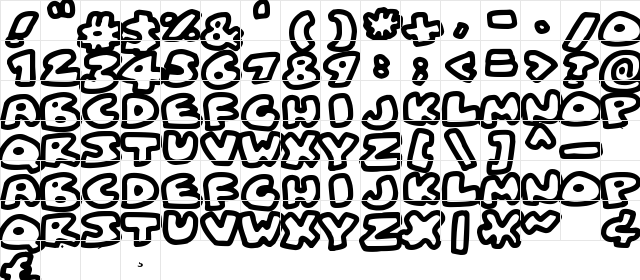
Fat Wobble Outlines Regular
Design Context for Fat Wobble Outlines Typeface
Fat Wobble Outlines brings ornamental detail and strong personality to headlines and identities, where visual impact matters more than quiet functionality.
Font Pairing: Pair with a clean neutral sans-serif for body copy to let Fat Wobble Outlines's character lead without overwhelming the composition.
Pro Tip: Treat Fat Wobble Outlines as the centrepiece of your typographic hierarchy. One strong heading set in a decorative face can carry an entire layout.